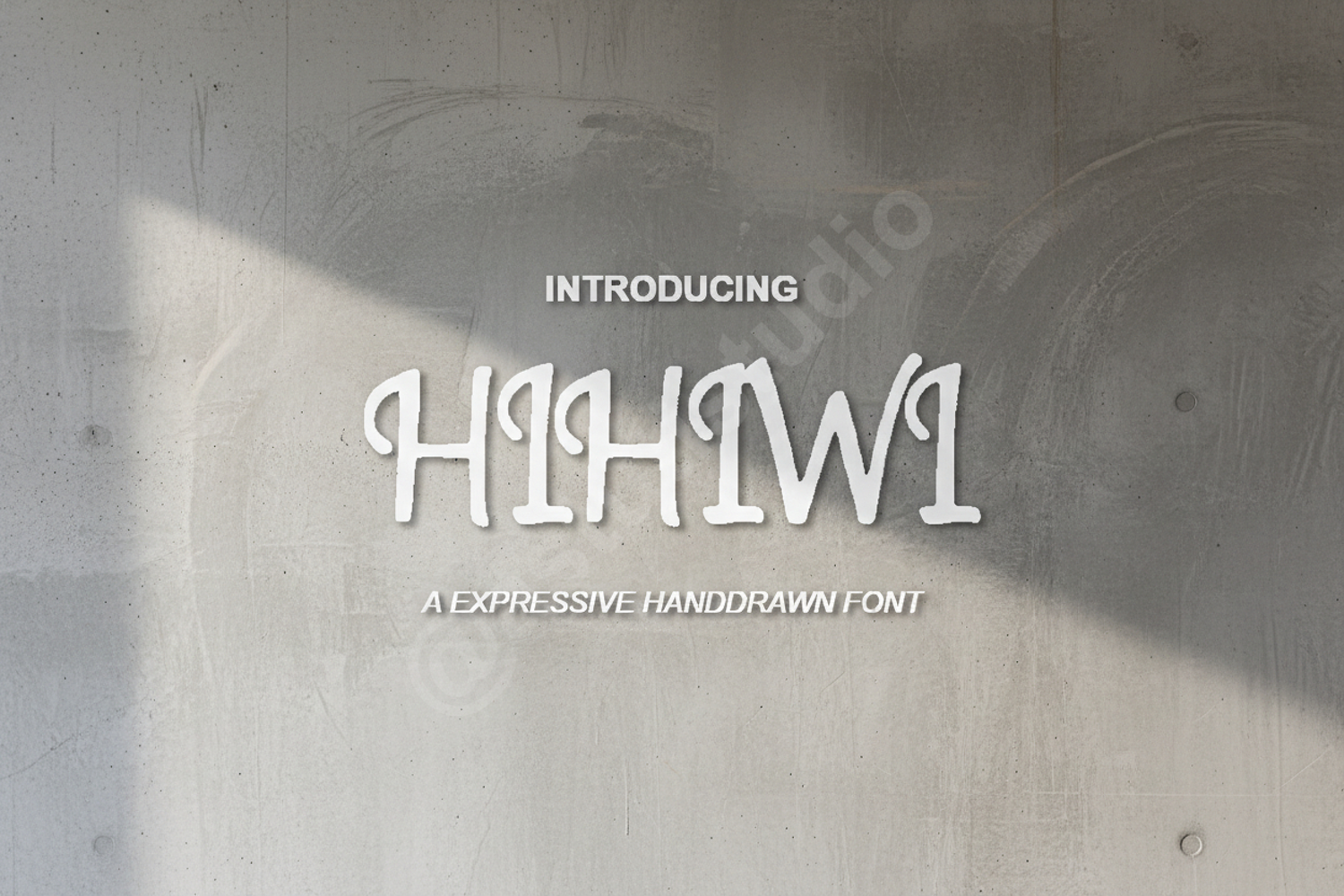
Hihiwi - Modern Playful Display Font
Hihiwi
Hihiwi is a premium-quality display font designed to bring a sense of warmth and modern flair to your creative projects. With its unique, organic letterforms, this font offers a perfect balance between professional polish and artistic personality, making it an essential addition to any designer's toolkit.
- Full set of uppercase and lowercase letters
- Branding and Logo Design: Create memorable identities with a friendly touch.
- Wedding Invitations and Stationery: Add a modern, elegant charm to special events.
- Social Media Graphics: Stand out on feeds with eye-catching typography.
- Packaging Design: Perfect for boutique products and organic goods.
- Children's Books and Posters: Engaging and legible for younger audiences.